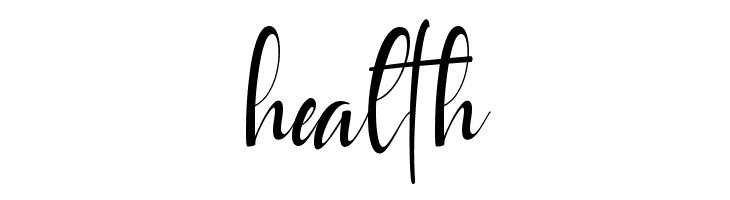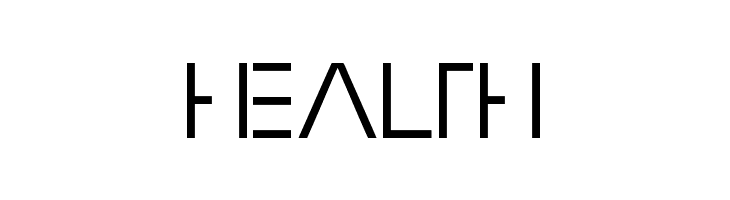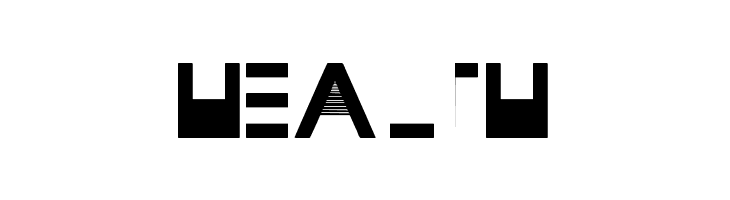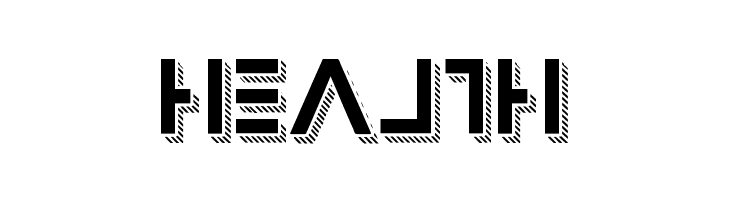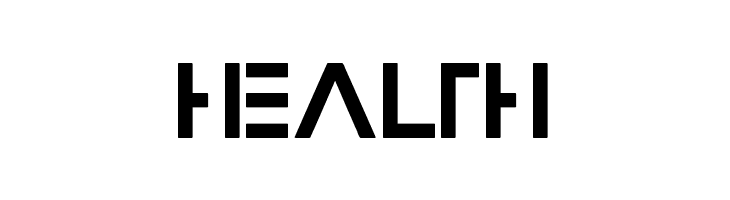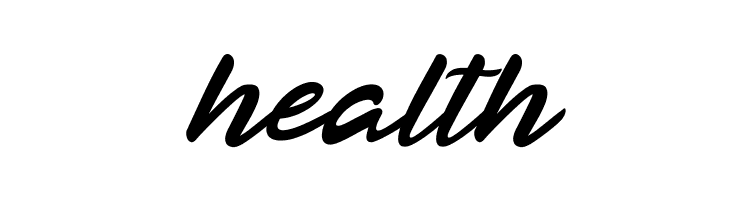
A lively handwritten font with expressive and fluid strokes.
A playful, dynamic handwritten font with fluid strokes and elegant movement.
A lively, cursive font with dynamic strokes and elegant curves.
A hand-drawn, artistic font with elongated, irregular letterforms.
A bold, expressive script font with fluid, dynamic strokes.
A bold, italic script font with a flowing, handwritten style.
A bold, geometric font with dynamic cut-out patterns and a modern aesthetic.
A futuristic, geometric font with sharp angles and clean lines.
A bold, geometric font with diagonal stripes and a modern, futuristic look.